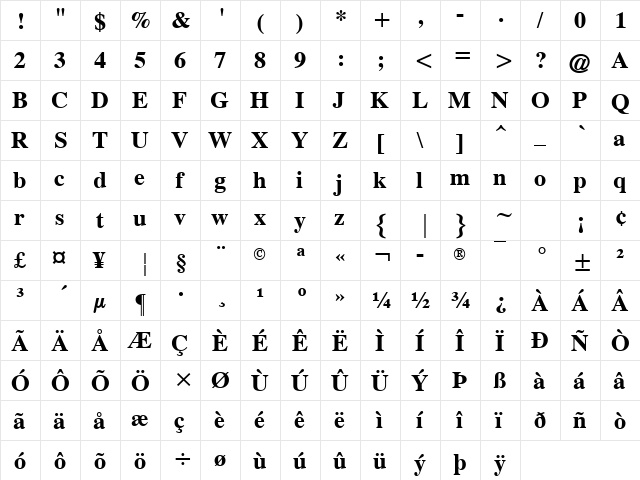
KCStar Bold Regular
Design Context for KCStar Bold Typeface
KCStar Bold is a composed and adaptable typeface that performs quietly and consistently across a wide range of design contexts. The heavy weight commands attention and anchors typographic hierarchies.